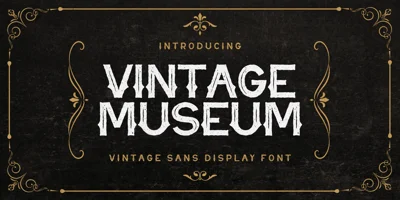
Vintage Museum Font
Vintage Museum Font is ideal for historical museums, antique collections, heritage preservation projects, vintage exhibition materials, classical art galleries, historical documentaries, archive publications, cultural institution signage, period piece productions, and timeless applications that celebrate the preservation and appreciation of historical artifacts and cultural heritage.
What makes Vintage Museum Font truly exciting is its authentic embodiment of historical preservation and curatorial excellence that captures the dignified atmosphere and scholarly reverence found in the world's finest cultural institutions. This exceptional typeface combines archival authenticity with museum-quality presentation, featuring carefully preserved letterforms and institutional character that convey both historical accuracy and educational authority. The font's curatorial personality and heritage-focused design make it perfect for institutions seeking to communicate historical importance, cultural preservation, and the invaluable mission of safeguarding humanity's most precious artifacts and memories for future generations.
The Vintage Museum Font family includes multiple weights and styles: Light, Regular, Medium, Bold, and Archive variations designed for maximum historical impact. Each family member maintains the distinctive institutional character while offering flexibility for diverse museum applications and heritage branding systems. The comprehensive character set supports historical typography needs and cultural design elements, making it suitable for international museum communications.
When you choose Vintage Museum Font, you're selecting a typography curator that delivers authentic museum credibility and historical excellence to every preservation project. This institutional typeface excels in applications where historical accuracy and cultural authority are paramount, delivering exceptional scholarly appeal while maintaining museum authenticity. Whether you're designing museum brands, heritage campaigns, historical materials, or cultural education content, this font provides the curatorial sophistication and historical gravitas that resonates with scholars and visitors who appreciate cultural preservation, historical accuracy, and the essential mission of protecting humanity's cultural legacy for future generations.